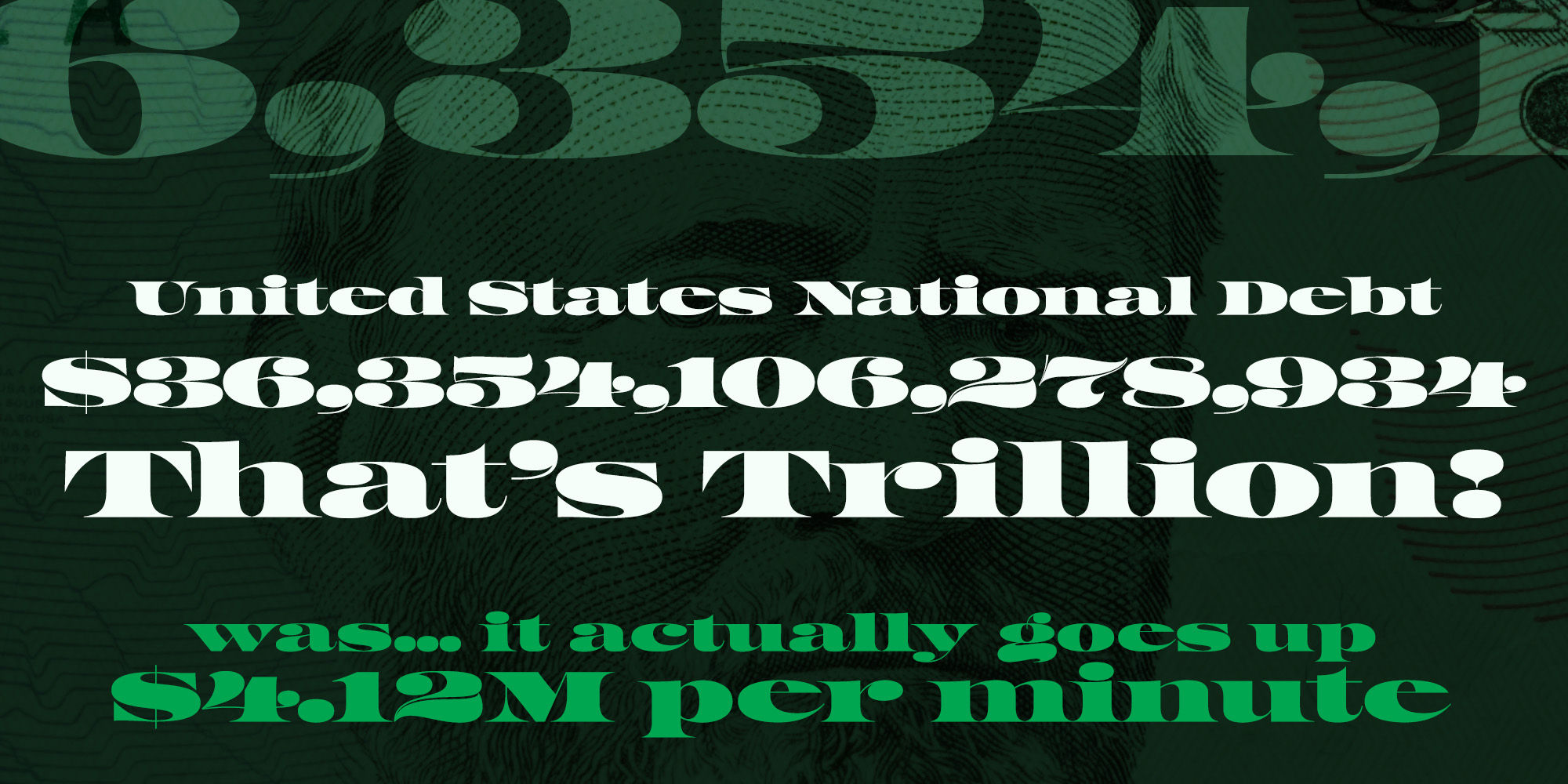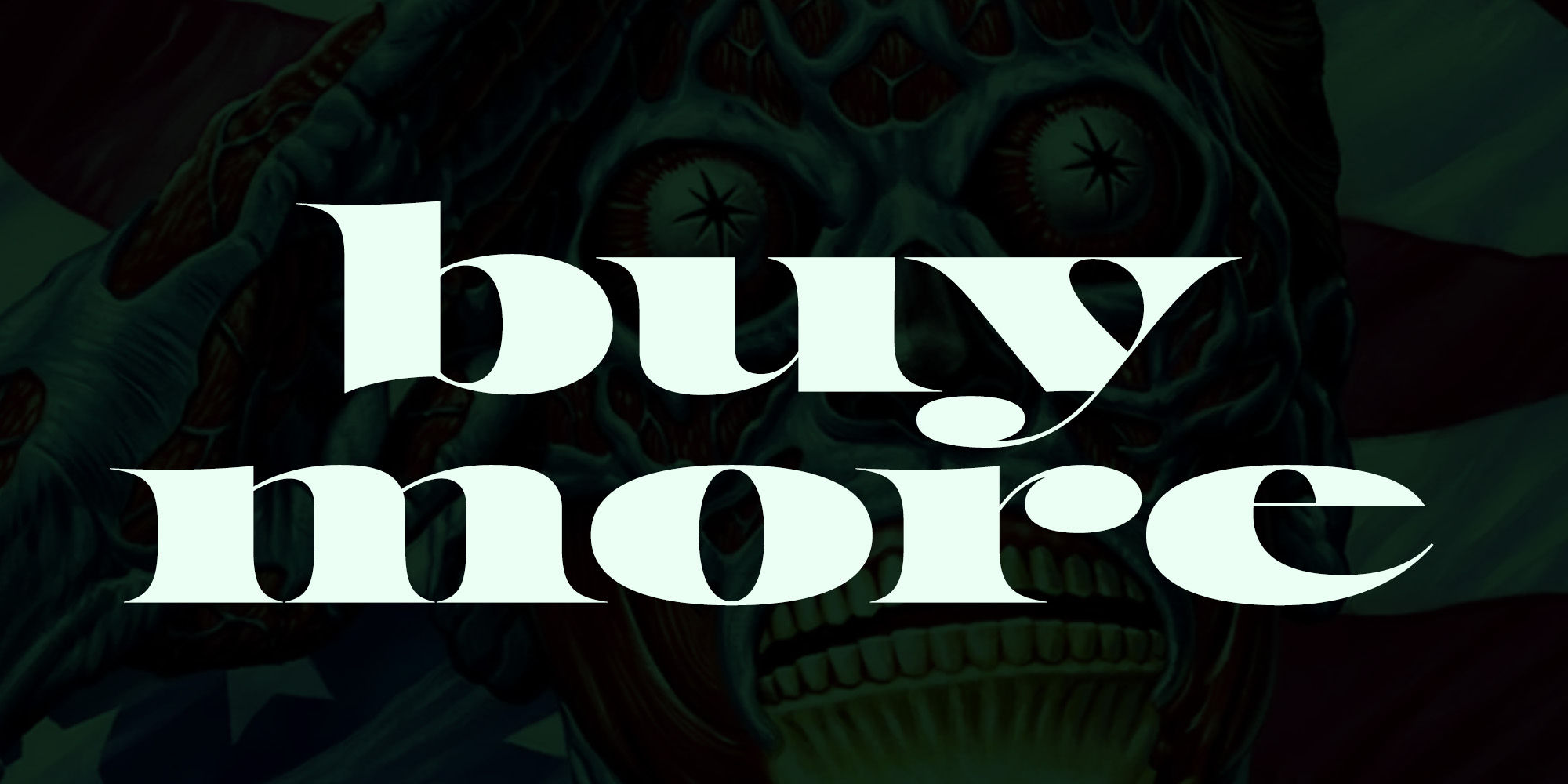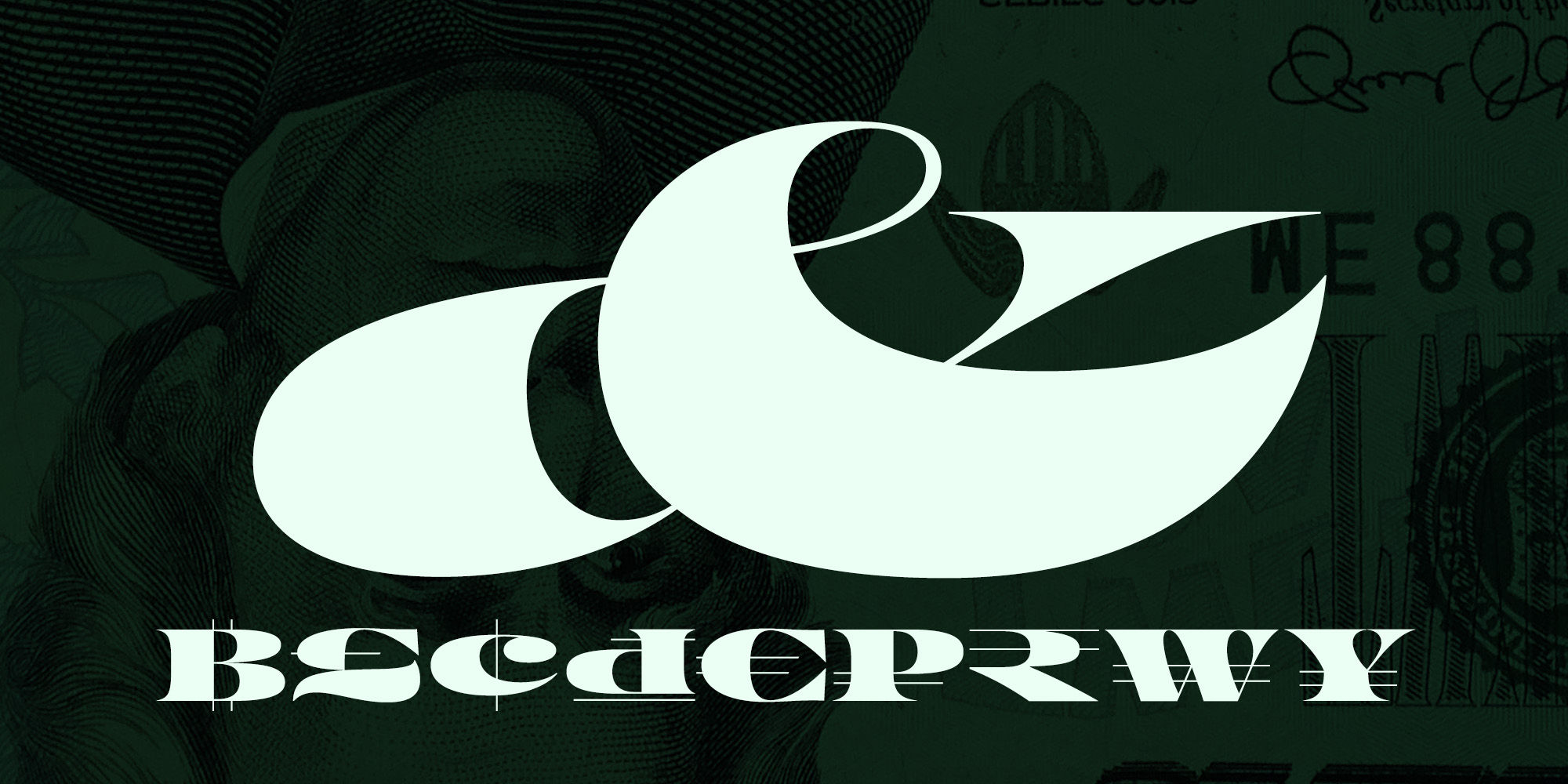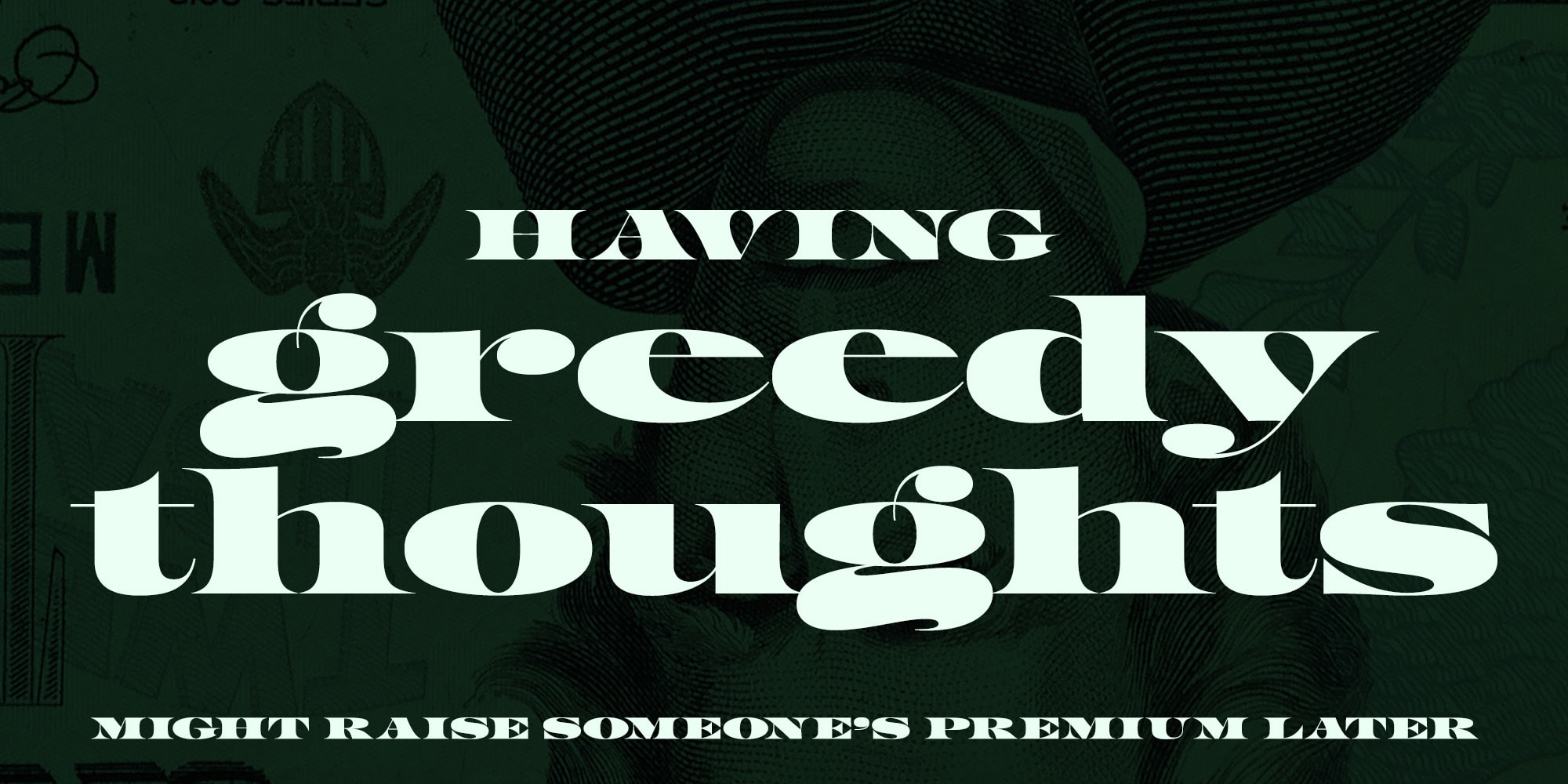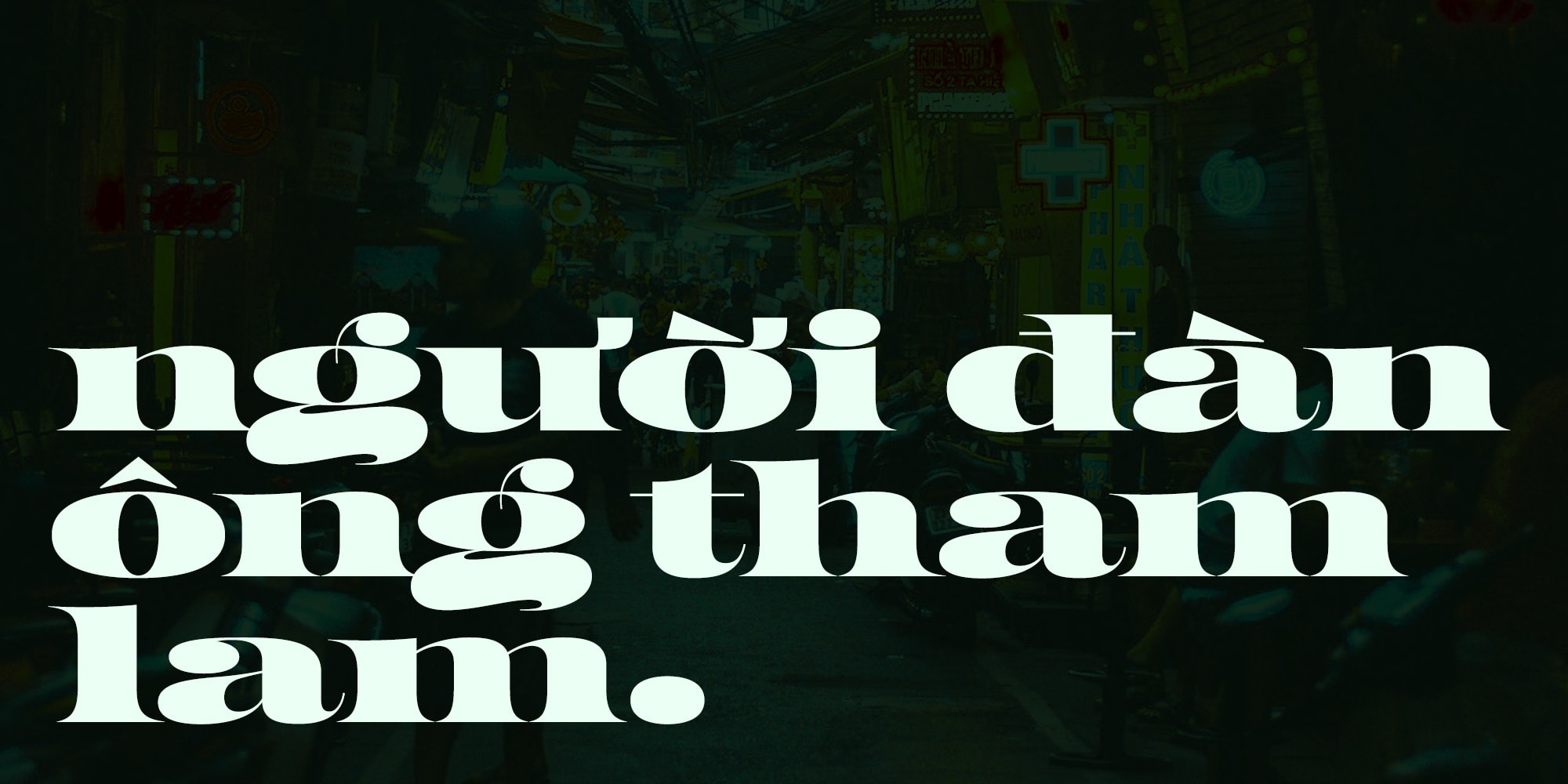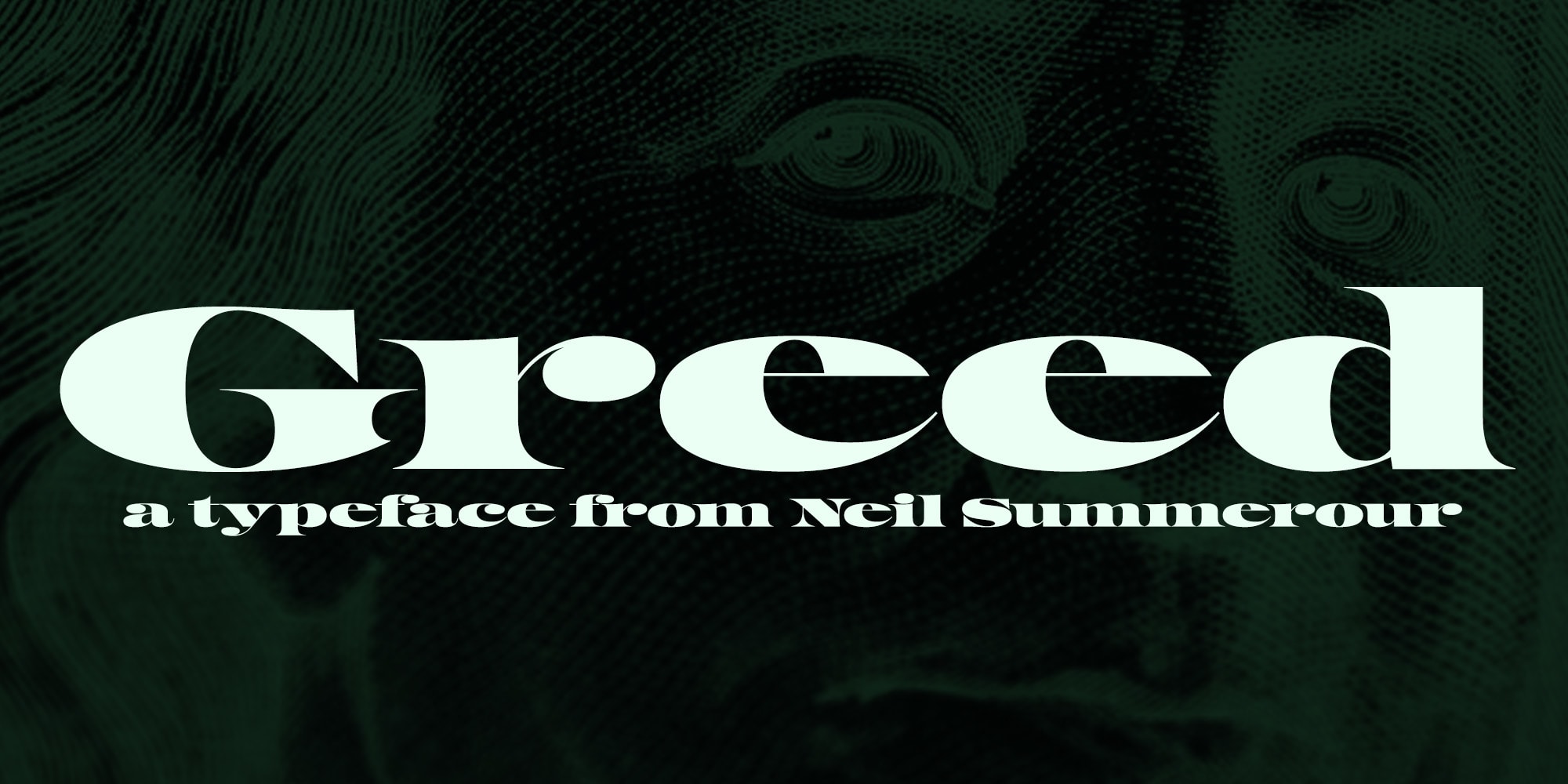
Greed
Greed is unapologetically opulent. Inspired by the intricate lettering of U.S. currency, this typeface amplifies every flourish, elevating the familiar into a bold expression of excess. Its exaggerated serifs, extravagant curves, and commanding presence embody decadence and ambition. Greed doesn’t whisper—it declares its dominance, making it the perfect choice for designs that demand attention and revel in unapologetic extravagance.